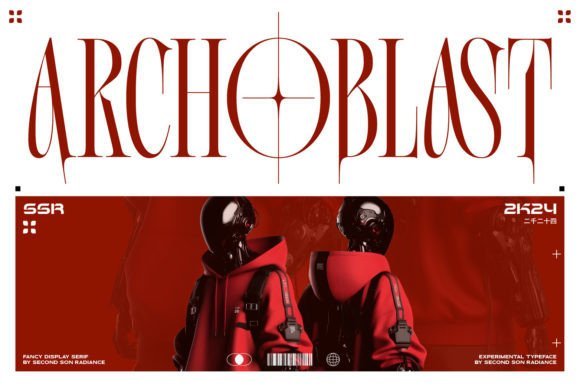
The Birth of a Futuristic Font: Archoblast’s Arrival
Have you ever stared at a blank page, waiting for that spark of creativity to strike? For designers, this moment is a familiar one. The blank slate is both a blessing and a curse, full of endless possibilities. And then, it happens – a single word, a single letter, a single font stands out from the crowd. This is where the Archoblast Font comes in, a game-changing display serif that’s sure to elevate your designs to new heights.
Archoblast Font is an experimental masterpiece, blending futuristic elements with elegant characteristics and a hint of Japanese flair. Designed specifically for display design and logo branding needs, this font is a treasure trove of creative possibilities. With over 100 glyphs combined between alternate and ligature, the Archoblast Font offers unparalleled versatility, allowing designers to mix and match to suit their unique vision.
Key Features of Archoblast Font
- Unique Characteristics: Archoblast Font features a unique blend of modern and classic design elements, with intricate details and flourishes that set it apart from other fonts.
- Script Support: The font includes a wide range of script styles, from elegant cursive to bold and dramatic, making it perfect for a variety of design applications.
Archoblast Font Review
As a designer, I’ve had the chance to work with the Archoblast Font, and I’m excited to share my honest review with you.
- Unique Design**: Archoblast Font boasts a distinctive and modern design that can add a touch of elegance to any project.
- Highly Legible**: The font is incredibly legible, making it perfect for body text, headings, and even display text.
- Comprehensive Character Set**: The font includes a wide range of characters, including accents, punctuation, and symbols.
- Limited Language Support**: The font only supports a limited set of languages, which may be a concern for projects requiring multilingual support.
- No Cyrillic or Greek Support**: Unfortunately, the font does not include Cyrillic or Greek characters, which may be a limitation for projects targeting Eastern European or Greek-speaking audiences.
Overall, I think Archoblast Font is a solid choice for designers looking for a modern and elegant font. While it has some limitations, its unique design and high legibility make it a great option for many projects. Just be aware of its language limitations and be prepared to supplement with other fonts if needed.
Tips for Getting the Most Out of Archoblast Font
For optimal results, use Archoblast Font in a large size (at least 24pt) and pair it with a clean, minimalist design. You can also experiment with different font sizes and colors to create a visually appealing effect.
Archoblast Font is perfect for creating elegant and sophisticated designs, such as:
- Magazine and book covers
- Website headers and footers
Alternatives to Archoblast Font
Playfair Display is a luxurious and elegant serif font, ideal for use in high-end branding, advertising, and editorial content. It features intricate details and ornate flourishes, making it perfect for adding a touch of sophistication to your designs.
Comparison to Archoblast Font: While Archoblast Font has a unique blend of modern and vintage elements, Playfair Display is more traditional and ornate, making it a better choice for projects that require a more formal or luxurious look.